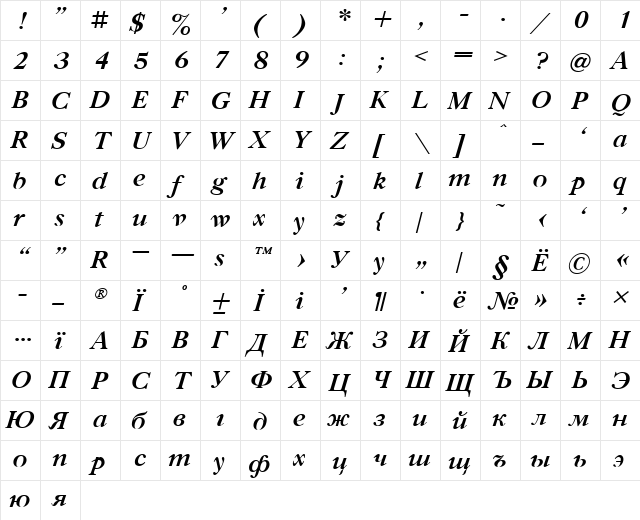
Gazeta Titul Bold Italic
Design Context for Gazeta Titul Typeface
Gazeta Titul is a composed and adaptable typeface that performs quietly and consistently across a wide range of design contexts. The slanted form adds forward momentum and visual energy. The heavy weight commands attention and anchors typographic hierarchies.
Pro Tip: Use Gazeta Titul for emphasis, pull quotes, and subheadings where its slanted energy can add rhythm to the layout.